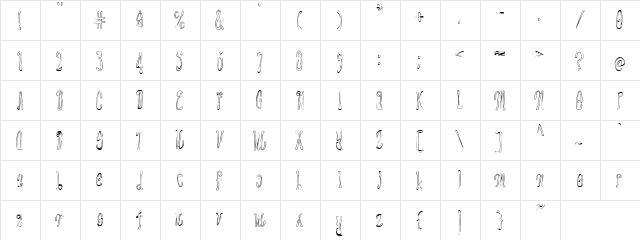
PC Stretch Regular
Design Context for PC Stretch Typeface
PC Stretch is a composed and adaptable typeface that performs quietly and consistently across a wide range of design contexts.